For many designers, procrastination hinders creativity. However, for Germany-based foundry TypeMates, this kind of work paralysis sparked something new. Faced with the overwhelming workload of developing the Gregory serif families, designer Jakob Runge recalls feeling like a rabbit caught in headlights. “In the meantime,” he tells us, “it was time to get my hands on how this might look in a sans serif.” And so Gregory Grotesk was born — a charming sans-serif that carries the ‘soft anti-ink trap’ features of its serif family.
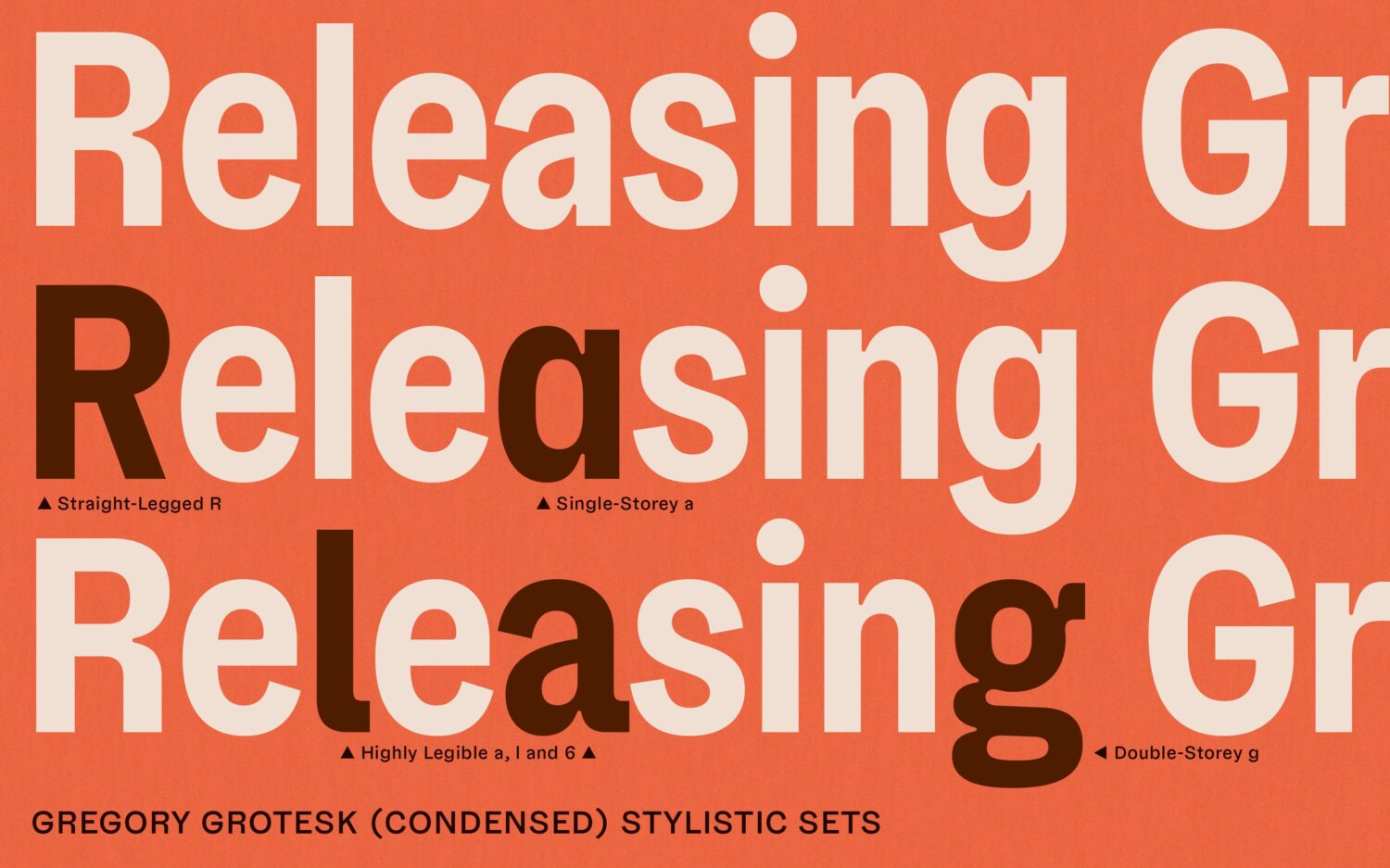
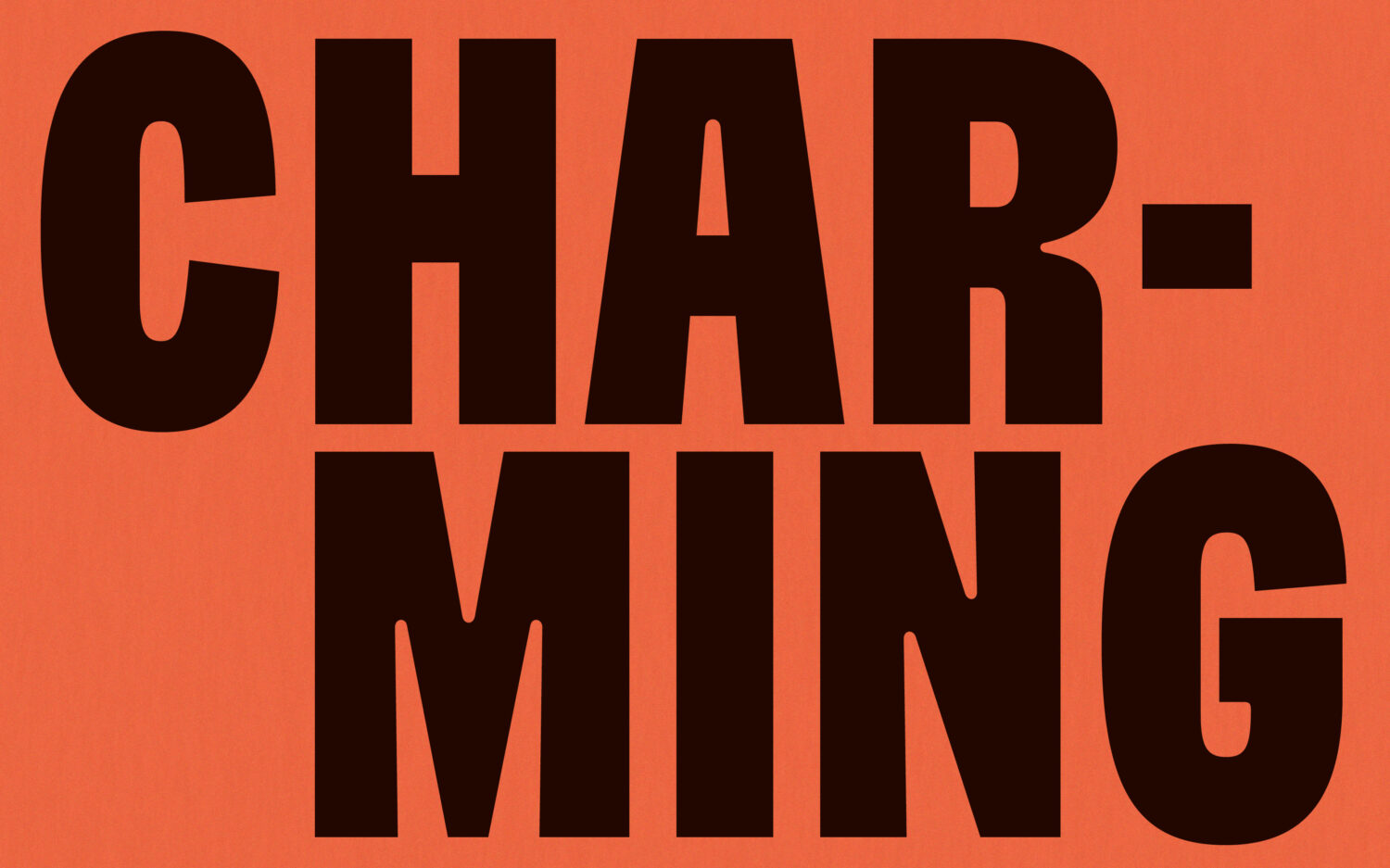
In addition to “some extravagant, top-heavy letter shapes,” the grotesque’s defining traits are its rounded inner corners at angular junctions. Here, instead of opting for ink traps, Runge turned to larger-scale wood type printing for inspiration, bringing a more handmade flair to “sterile digital environments.” This lack of ink traps causes strokes at joints to thin, creating a tapering effect like 19th-century grotesque fonts. “Eye-catching moments of contrast and character, they celebrate small type displayed big.”
A friendly, positive personality blends with a hardworking, highly functional design and geometric structure that carries through all 24 styles — 8 weights and 3 widths — including Condensed and Compressed versions.
“The compressed styles were developed after the regular version of Gregory Grotesk was almost set in design,” Runge explains. “Sometimes I find it difficult to develop condensed widths because white space plays a significant role and the individual personality of the typeface tends to fade – to exaggerate: ultimately, they all appear just condensed and sans serif.” Fortunately, Runge could count on a “hidden gem in modern typography,” the inked style. “That really helped to keep the Gregory-specific flair, even in narrow widths. At times, I almost prefer the pithiness of the compressed to the original,” he notes.
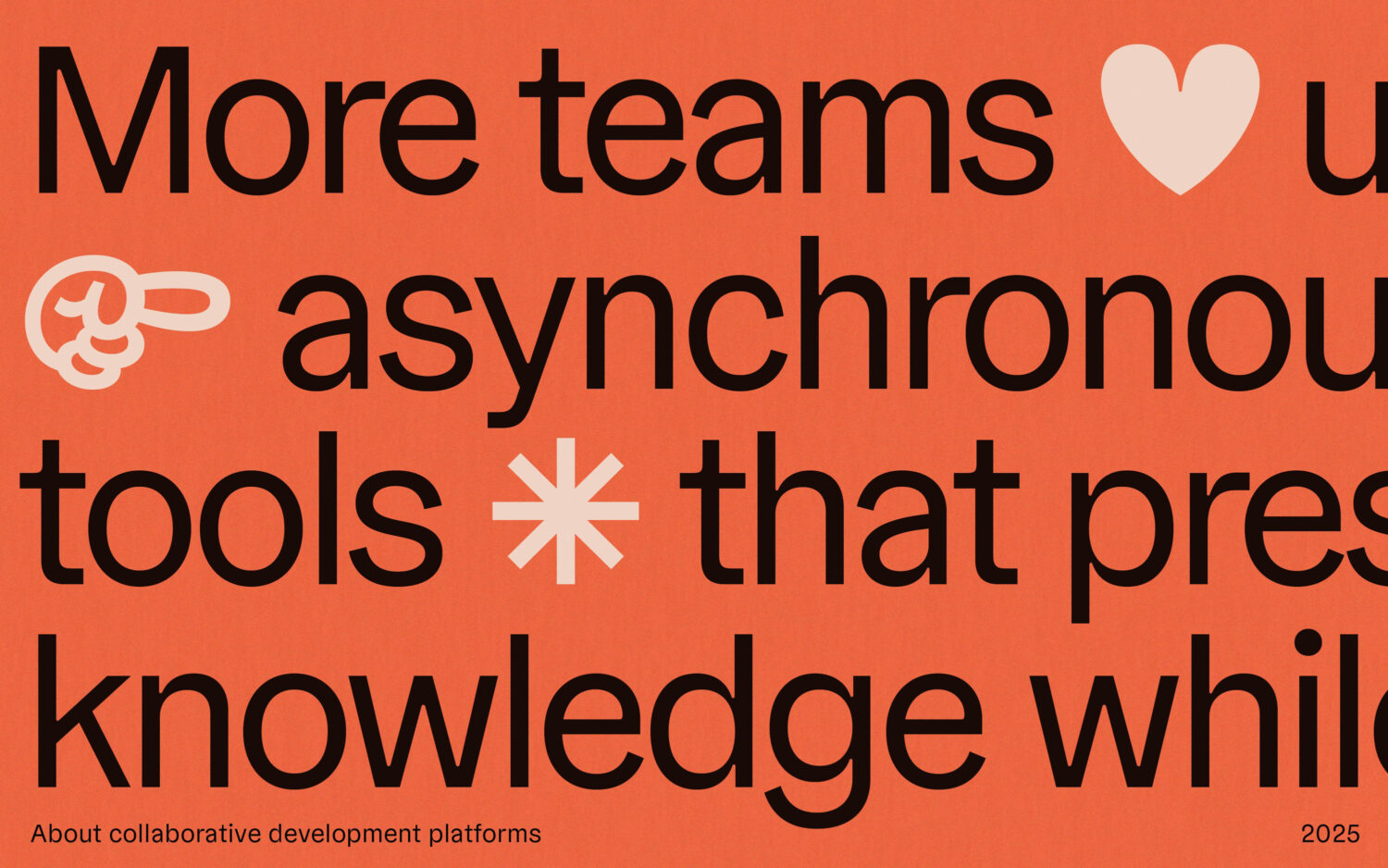
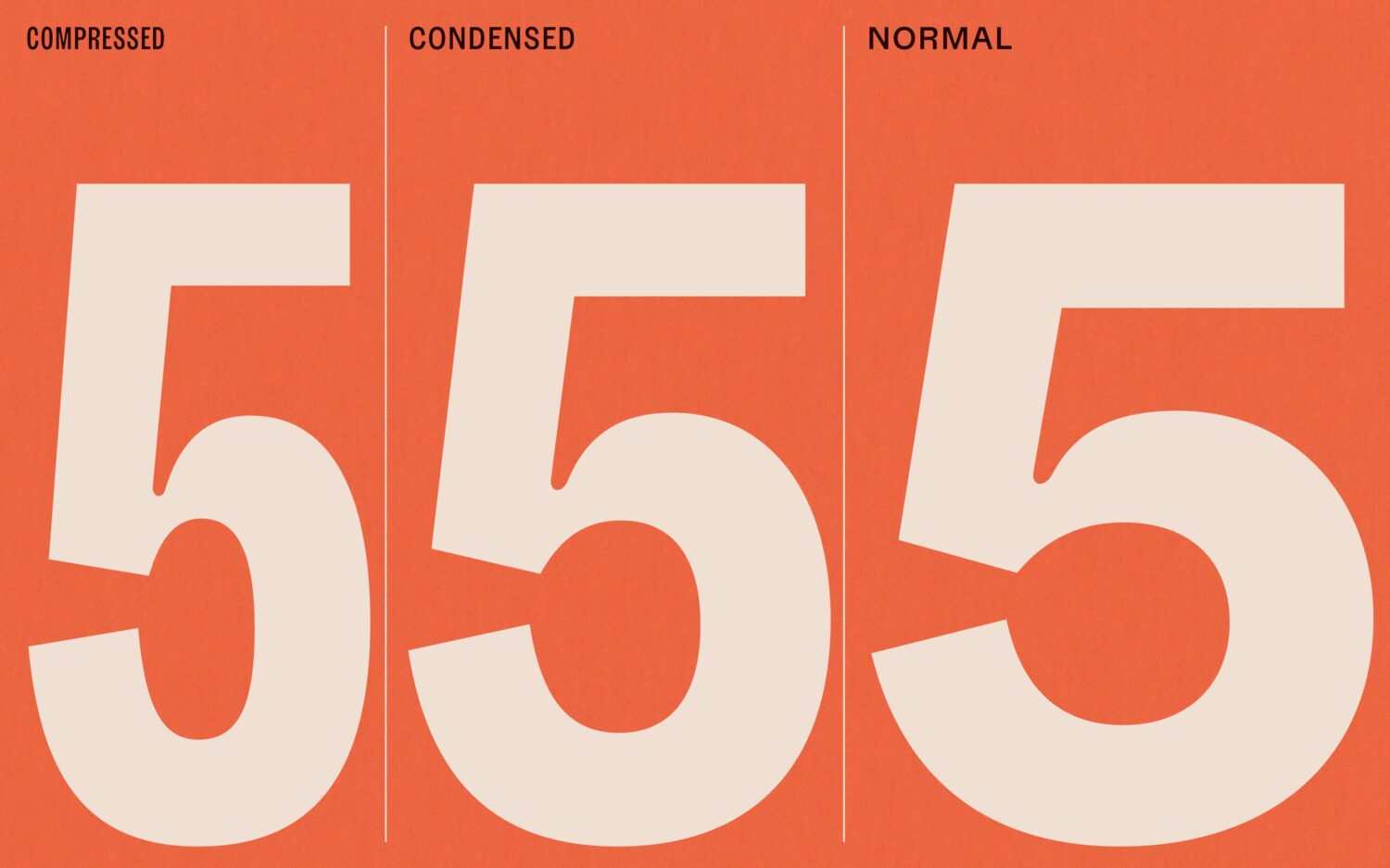
With extensive experience creating superfamilies, TypeMates thrive at developing large font families – ones that feature a variety of styles, languages, and typefaces, including sans and serif siblings, as Runge describes. “When things get complex, we are on fire,” he adds.
Within the wider catalogue, the Gregory Collection provides a softer serif option, with Gregory Grotesk contrasting with their other geometric typefaces. “For me personally, it’s a circle of type,” says Runge. “After graduating with the characterful Franziska, Cera followed with super clean shapes. Then came Urby, which turned up the volume on special shapes, followed by Grato and Gratimo, which went back to geometry. Now it’s Gregory, with the idea of ‘not much rationale but matching shapes.’ I’ve come full circle now to a design with lots of personality.” As a family, Gregory’s fonts share the same spirit but differ in details. “It is a superfamily that is somewhat contrary, connecting rather than matching.”
At large sizes, the Grotesk maintains a distinctive, recognisable appearance, while also providing functional typography for interfaces and texts at smaller scales. And its flexibility allows it to pair well with many other typefaces, whether for body text or headlines.
“In a current project showcasing our one-time licences without subscription, we are using Gregory Grotesk Condensed for headlines combined with Marc’s Weymann Serif for subtext.
In another case, Gregory Grotesk is a good partner for Philipp Neumeyer’s Nobert in body text, because Nobert is particularly strong in headlines and does not —on purpose— provide any styles for usual weight and widths in text sizes.”
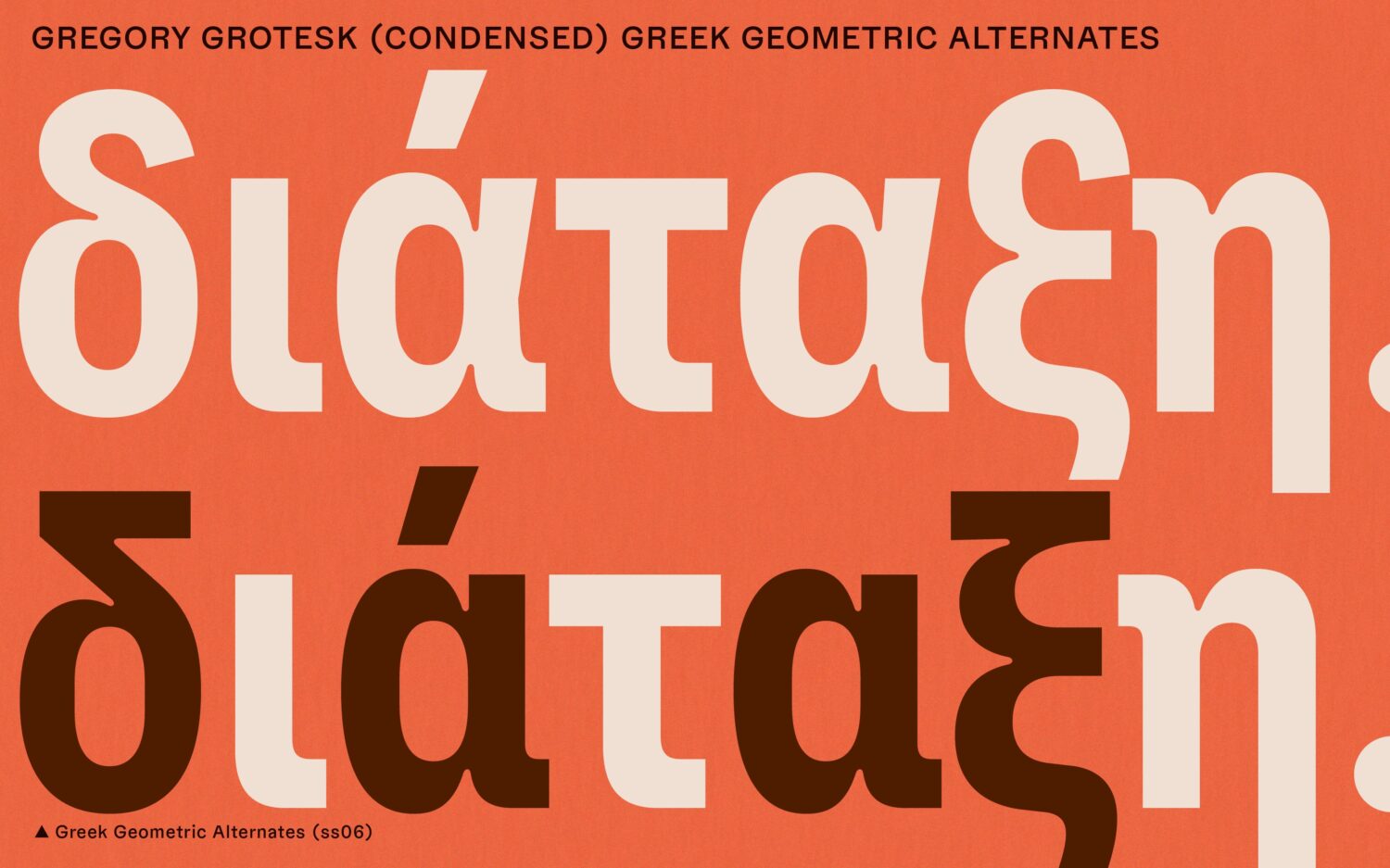
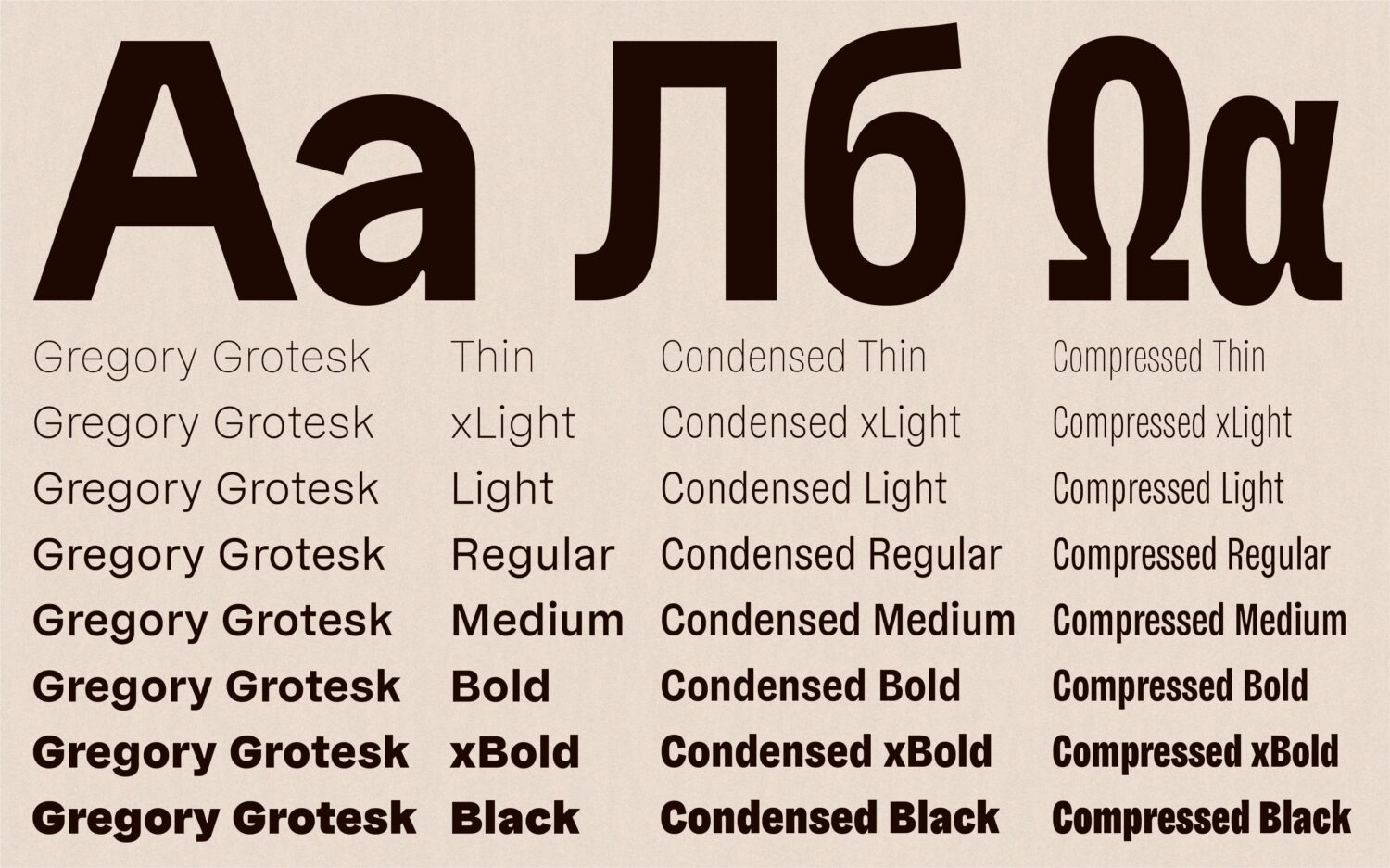
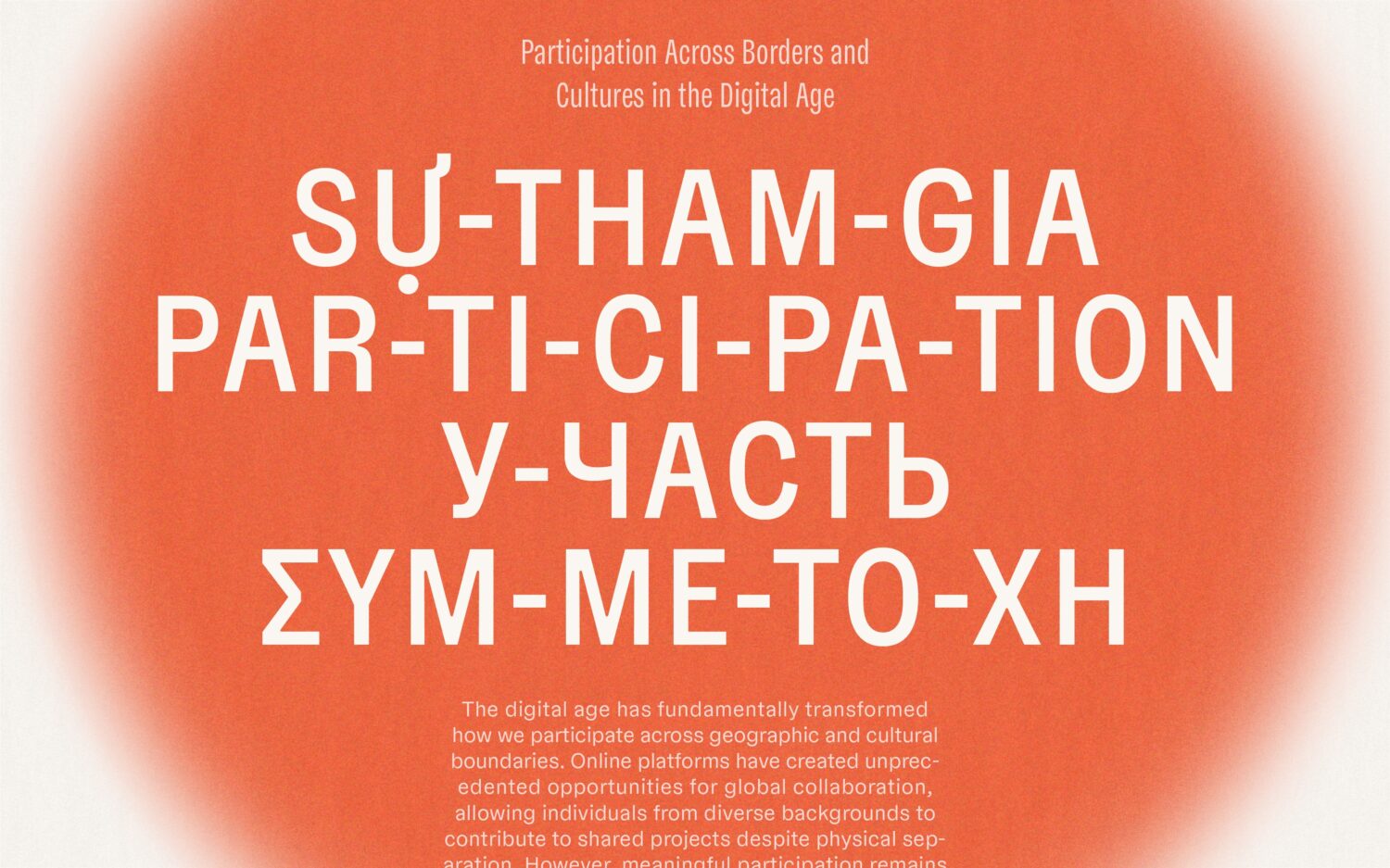
Regarding language support, the typeface currently supports over 270 languages, and beyond Latin, it includes Greek and Cyrillic support for a full pan-European approach. “Shout-out to Antonia Cornelius for joining the team, becoming a publishing partner and adding Greek and Cyrillic letters. Also props to Irene Vlachou and Maria Doreuli for taking care of the cultural validity in these scripts.”
In terms of development, Gregory’s momentum continues, building on its Grotesk and Poster styles with a text-focused serif in the works, soon to complete the trilogy. Runge promises “soft-curved serifs, generous countershapes, and a cosy vibe that makes complex text a pleasure to read.”
As for the rest of the year, the type designer has a few ideas and projects brewing, including an Arabic and Hebrew version of Runge’s bestseller Cera Pro, which is in the works. “The idea of the soft anti-ink trap has infiltrated my mind to see how this might look in a totally rounded design,” he adds. “It matches very nicely, but it’s another day’s task for now.”
Likewise, he imagines a monospace version will likely follow, helping to bridge people-based branding and the value generated from code and data.